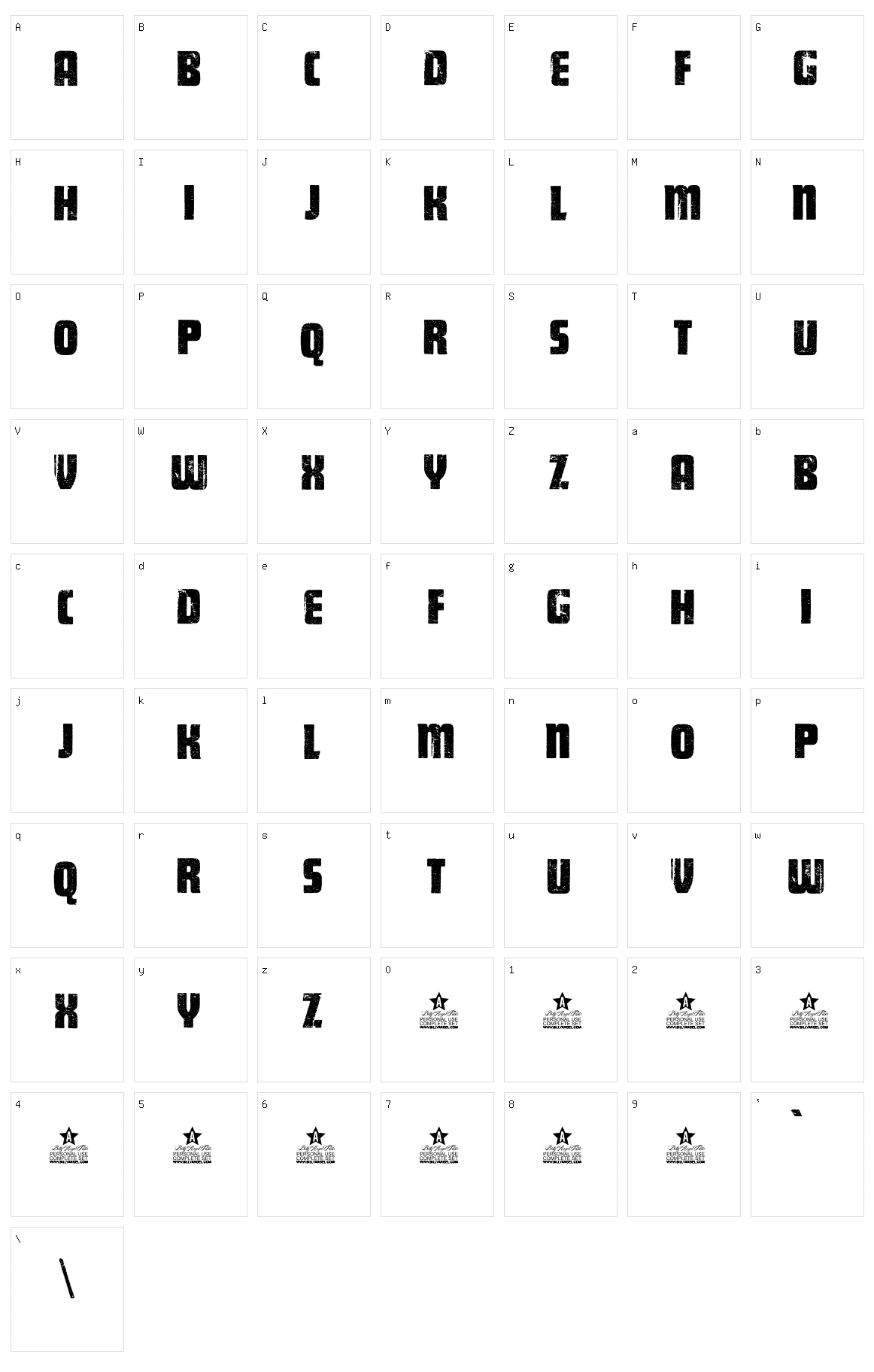
The free font Generator is carefully designed by Billy Argel Fonts ®, showcasing a thoughtful balance of creativity and usability and falls under the Eroded font style. When you download the ZIP file, it contains only 459.31 KB of font files, making it lightweight and quick to download. Please review the license details below to understand permitted usage and distribution rights. If license information is not available, we recommend using this font for personal projects only or contacting the author directly for commercial usage permissions.